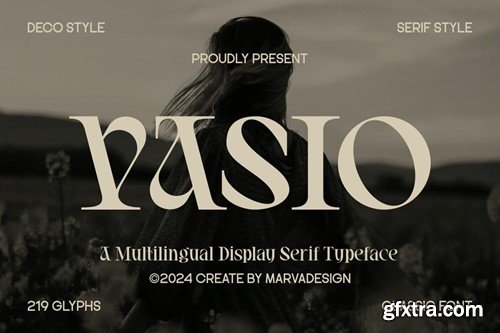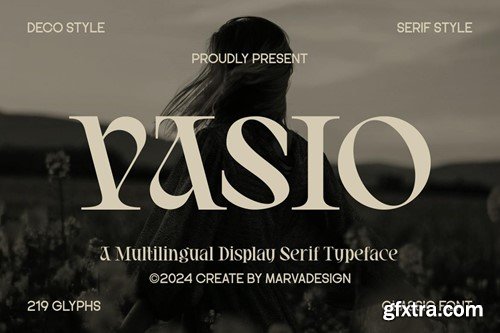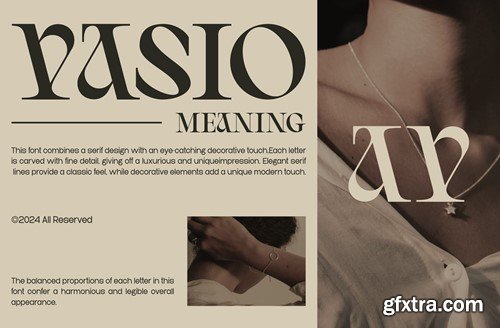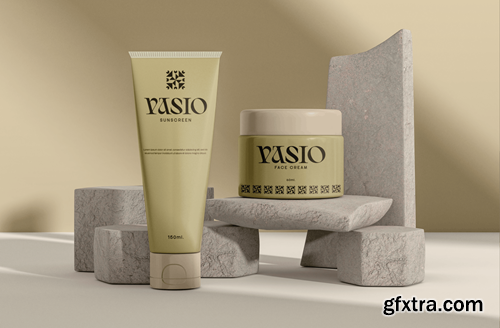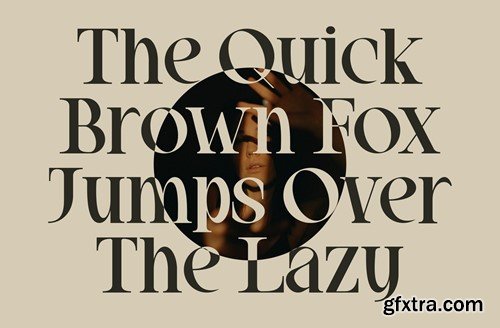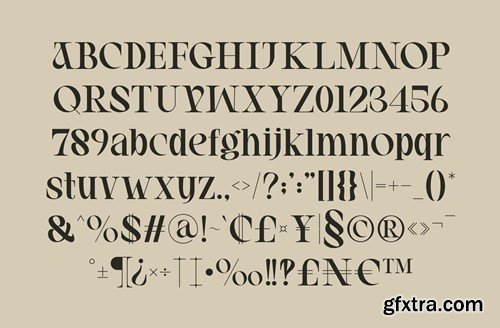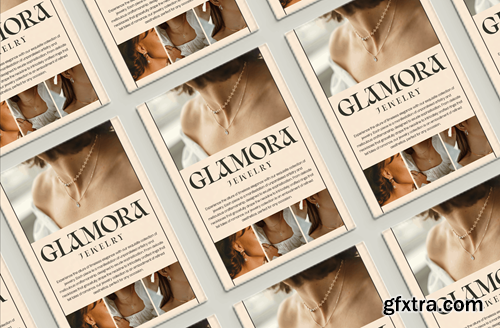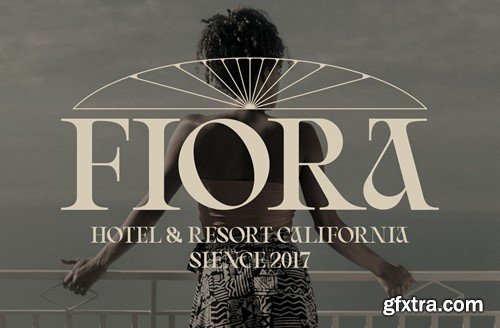
瓦锡兰 - 经典显示衬线字体 QHFBG3L
Vasio - Classic Display Serif Font
Introducing our new product Vasio - Classic Display Serif Font Vasio - This font has an elegant serif and decorative style, every distance in the space is made the same, this font is suitable for use for various products, such as; Skincare, Cosmetics, Logos, Branding, magazines, and posters. outstanding in a wide range of contexts. availlable